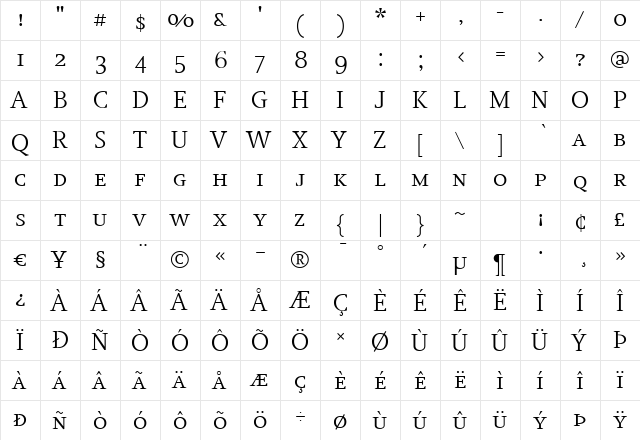
JudeLightSmallCaps Regular
Design Context for JudeLightSmallCaps Typeface
JudeLightSmallCaps takes a measured approach to typography — its balanced proportions and neutral character make it a reliable workhorse for both digital and print work. Its slender proportions lend an understated elegance to any composition.